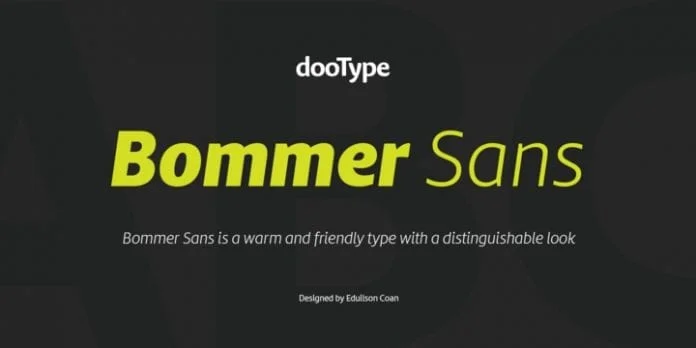
Bommer Sans Font
Bommer Sans Font is perfect for explosive marketing campaigns, high-impact advertising, dynamic sports branding, powerful corporate presentations, energetic event posters, bold startup logos, aggressive promotional materials, intense gaming graphics, commanding business communications, and striking visual identity systems.
Bommer Sans Font is exciting because it delivers explosive visual impact and commanding presence through bold, powerful letterforms that convey strength, intensity, and unstoppable energy with aggressive confidence. This dynamically designed typeface combines industrial strength with contemporary functionality, making it perfect for brands that want to communicate market dominance, explosive growth, and powerful performance that demands immediate attention.
The Bommer Sans Font family includes heavy weights with impact-focused character styling, featuring explosive design elements and power-driven variations. The font showcases high-impact design details, intensity-optimized proportions, and commanding character characteristics that create a comprehensive typographic system for powerful and aggressive brand applications.
The explosive sophistication of Bommer Sans Font makes it an invaluable tool for competitive companies, high-performance brands, and aggressive service providers that need typography capable of communicating market dominance and powerful performance. The font's commanding character helps establish immediate associations with strength, intensity, and competitive advantage that resonate with audiences seeking powerful solutions and dominant market leaders.
Sports teams, competitive businesses, and high-energy brands consistently choose Bommer Sans Font for its ability to convey explosive power and commanding sophistication through typography. The font excels in applications where establishing market dominance and powerful appeal are essential to brand positioning, making it particularly effective for competitive sports, aggressive marketing, and dominant brands targeting power-seeking consumers.
This font's comprehensive character set includes impact-styled letterforms, explosive numerals, commanding punctuation marks, and power symbols that support authentic high-impact typography composition. The consistent aggressive styling maintains the explosive power theme throughout all characters while ensuring professional readability across all competitive and high-energy design projects requiring Bommer Sans Font Free Download functionality.